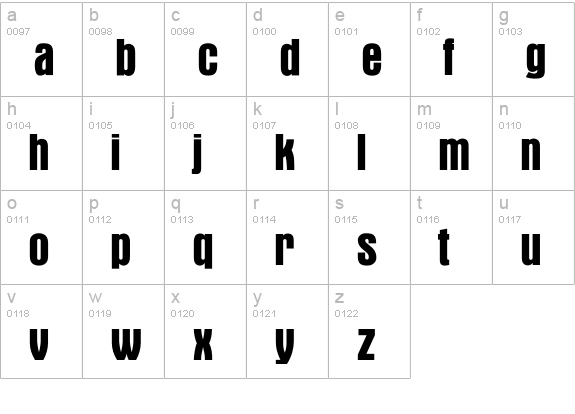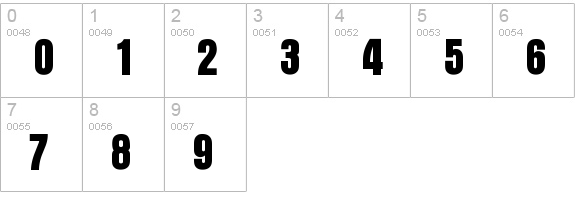
OPTIAuroraGroteskNine Font Details
Introducing OPTIAuroraGroteskNine, a sleek and modern typeface that exudes sophistication and elegance. This font combines clean lines with a touch of artistic flair, making it the perfect choice for projects that require a contemporary and stylish look. OPTIAuroraGroteskNine is versatile and can be used for a wide range of design applications, from branding and advertising to web design and print materials. The best part? This stunning font is completely free to download at FontsMarket.com, making it accessible to designers of all levels. Whether you're working on a personal project or a client's commission, OPTIAuroraGroteskNine is sure to elevate your designs and make a lasting impression. Don't miss out on this opportunity to add a touch of sophistication to your next project with OPTIAuroraGroteskNine. Download it today and unleash your creativity!